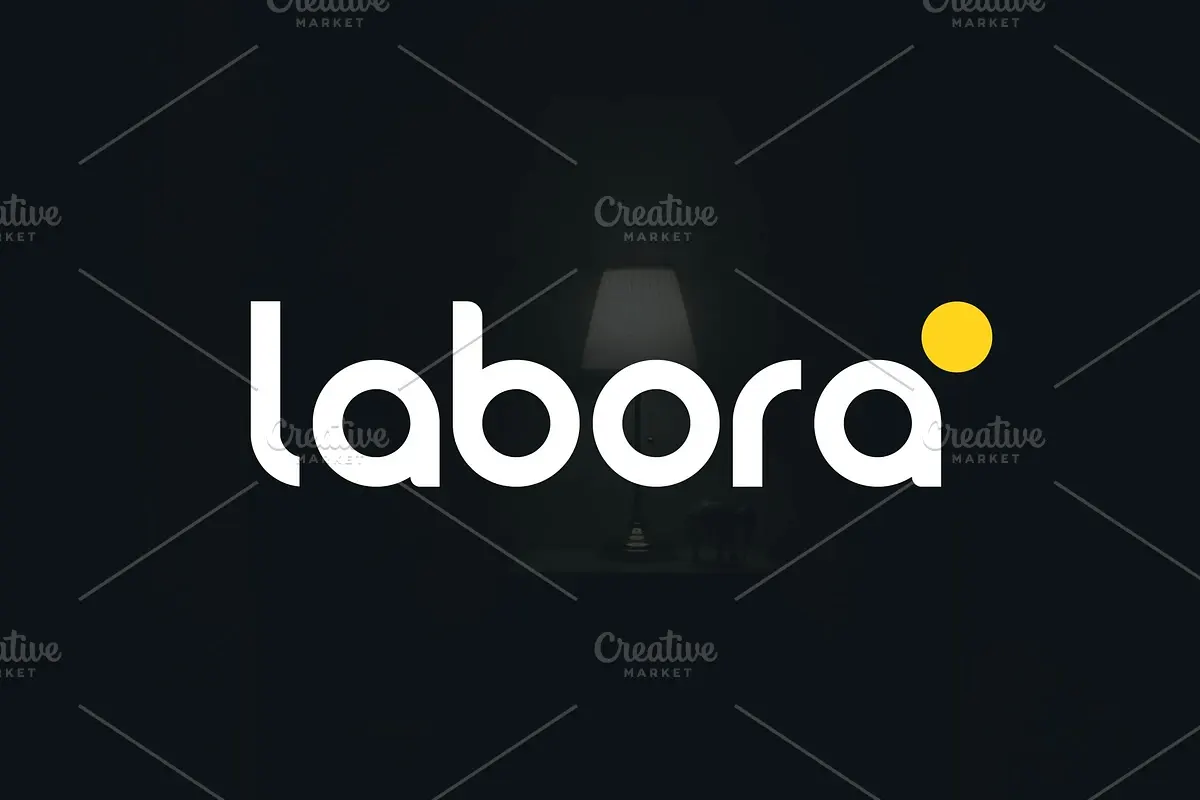
Labora Sans Serif Font Free Download is a clean, modern sans-serif typeface designed with versatility and readability in mind. Featuring smooth lines and balanced proportions, Labora is perfect for a wide range of design applications, including branding, websites, editorial layouts, logos, and more.
The simplicity of Labora allows it to work seamlessly across various platforms, making it an excellent choice for both print and digital projects. Whether you're designing for tech, business, or lifestyle brands, Labora offers a professional, contemporary feel with timeless appeal.